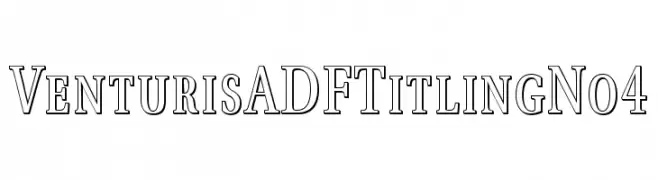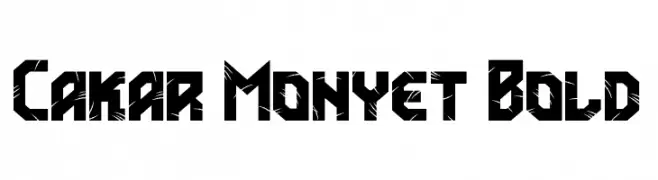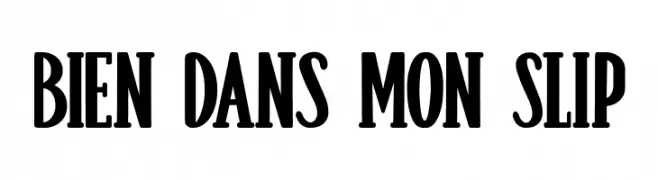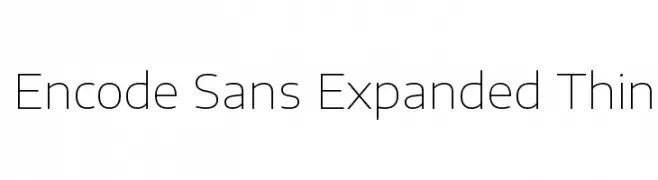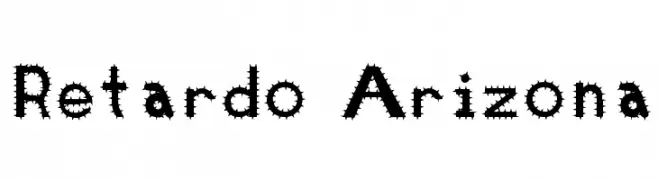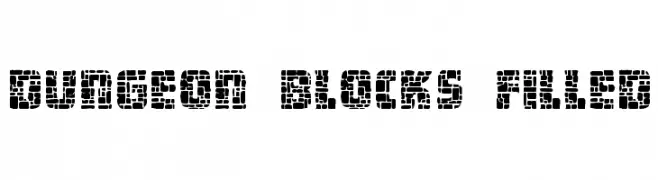
A textured, hand-drawn font with a bold and artistic style.
A classic serif font with modern elegance and medium contrast.
A bold, angular font with a scratched, edgy design.
A bold, vintage-style font with a strong, commanding presence.
A modern, expanded sans-serif font with thin strokes and geometric precision.
A bold, blocky font with a filled stone-like pattern, perfect for impactful designs.